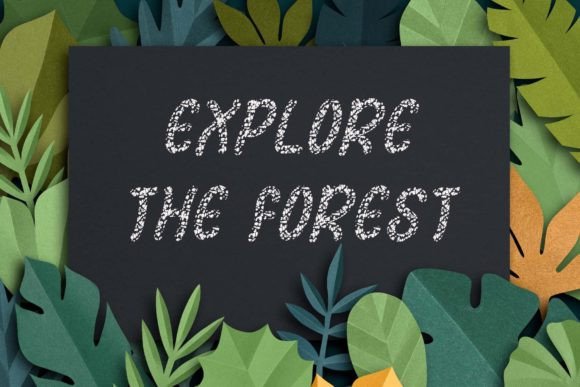
Jungle Leopard Font: The Ultimate Display Font for Creative Projects
In the world of typography, fonts play a crucial role in conveying the tone and personality of a brand, product, or creative project. With the numerous font options available, finding the perfect one that stands out from the crowd can be a daunting task. However, if you’re looking for a unique and eye-catching display font, look no further than the Jungle Leopard Font. In this article, we’ll explore the features, benefits, and uses of this fantastic font.
What is Jungle Leopard Font?
Jungle Leopard Font is a distinctive display font designed to make a statement. Its unique style and characteristics make it an excellent choice for a wide range of creative projects, from comic titles and posters to logos and children’s book covers. This font is carefully crafted to provide a bold and captivating look that grabs attention and leaves a lasting impression.
Key Features of Jungle Leopard Font
Jungle Leopard Font comes equipped with an impressive set of features that make it a versatile and practical choice for designers and creatives. Some of its key features include:
- Uppercase and lowercase letters
- Numerals and punctuation marks
- Multilingual support
- Unique and bold design
These features ensure that Jungle Leopard Font can be used for a variety of projects, from simple titles and headings to complex designs and branding materials.
Benefits of Using Jungle Leopard Font
So, why choose Jungle Leopard Font for your creative projects? Here are some benefits that make it an excellent choice:
- Attention-grabbing: The bold and unique design of Jungle Leopard Font ensures that your project stands out from the crowd and grabs attention.
- Versatile: With its wide range of characters and multilingual support, Jungle Leopard Font can be used for various projects, from posters and logos to children’s book covers and film titles.
- Easy to read: Despite its bold design, Jungle Leopard Font is easy to read, making it perfect for titles, headings, and short paragraphs.
- Customizable: Jungle Leopard Font can be easily customized to fit your project’s style and tone, ensuring a perfect match.
Use Cases for Jungle Leopard Font
Jungle Leopard Font is an incredibly versatile font that can be used for a wide range of creative projects. Here are some use cases that showcase its potential:
- Comic titles: Add a bold and playful touch to your comic book titles with Jungle Leopard Font.
- Posters and banners: Create eye-catching posters and banners for events, promotions, or announcements.
- Logos and branding: Use Jungle Leopard Font to create unique and memorable logos and branding materials.
- Children’s book covers: Add a fun and playful touch to your children’s book covers with Jungle Leopard Font.
- Film and book titles: Use Jungle Leopard Font to create captivating titles for films, books, and other media.
- Halloween and Christmas designs: Get into the holiday spirit with Jungle Leopard Font, perfect for creating spooky or festive designs.
- Stickers and decals: Create fun and playful stickers and decals with Jungle Leopard Font.
Tips for Using Jungle Leopard Font
To get the most out of Jungle Leopard Font, here are some tips to keep in mind:
- Use it sparingly: Jungle Leopard Font is bold and attention-grabbing, so use it sparingly to avoid overwhelming your design.
- Pair it with other fonts: Combine Jungle Leopard Font with other fonts to create a unique and visually appealing design.
- Experiment with colors and textures: Add depth and interest to your design by experimenting with different colors and textures.
- Keep it legible: Ensure that your text is legible by using Jungle Leopard Font in a size and style that’s easy to read.
Jungle Leopard Font is a unique and versatile display font that’s perfect for creative projects that require a bold and attention-grabbing look. With its wide range of characters, multilingual support, and customizable design, Jungle Leopard Font is an excellent choice for designers and creatives. Whether you’re working on a comic book title, poster, logo, or children’s book cover, Jungle Leopard Font is sure to make a lasting impression.
- Is Jungle Leopard Font suitable for body text? While Jungle Leopard Font is primarily designed for display purposes, it can be used for short paragraphs or body text in larger sizes.